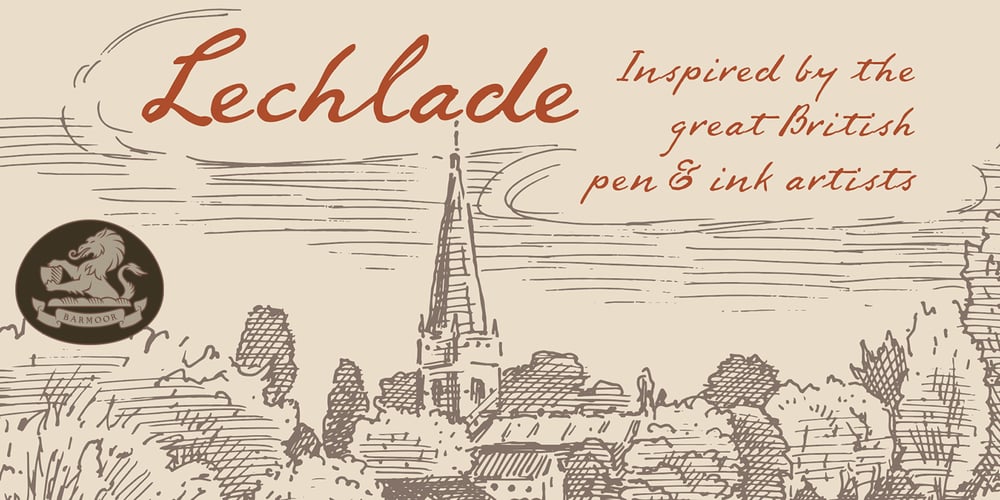
Lechlade Font Family was designed by Tracy Sabin and published by Barmoor Foundry. Lechlade contains 4 styles and family package options. Lechlade is inspired by the handwriting of the great British pen and ink artists; Edward Lear, John Tenniel, E. H. Shepard and Edward Ardizzone. It works well with projects that reference personal expression such as diaries, recipes, illustrated journals and hand-drawn maps.